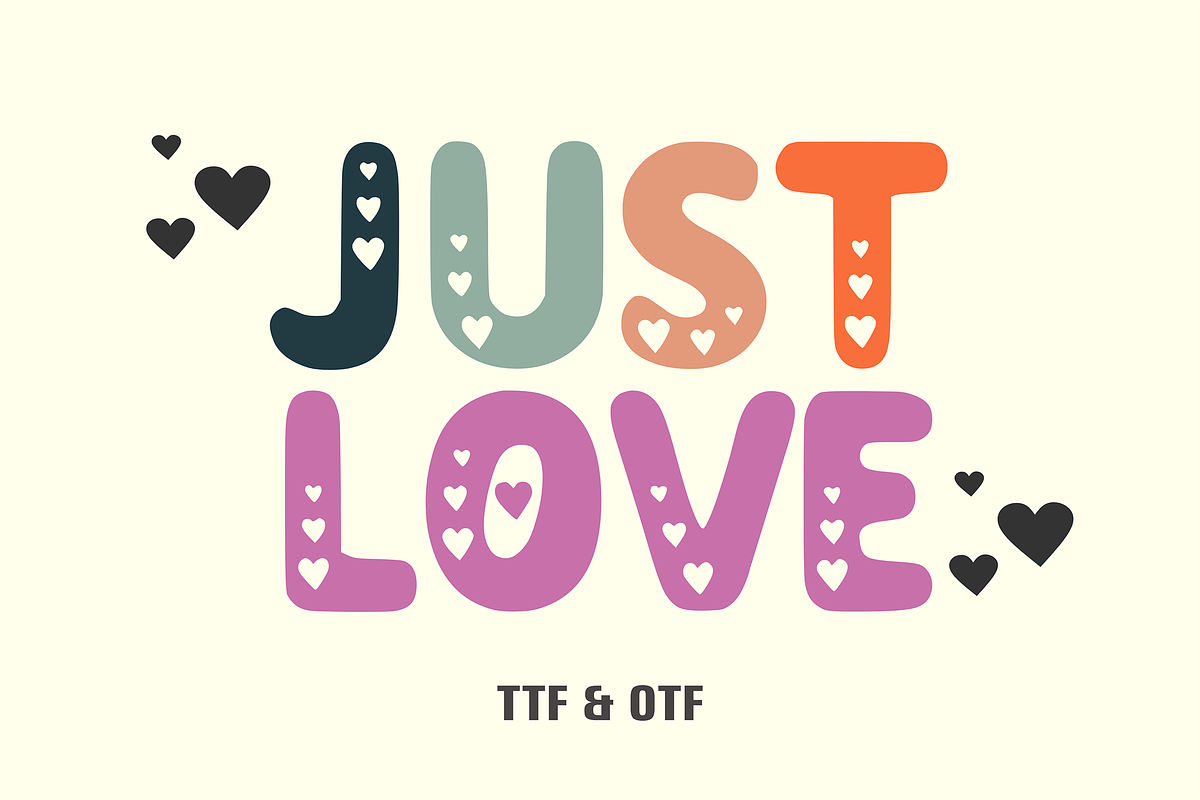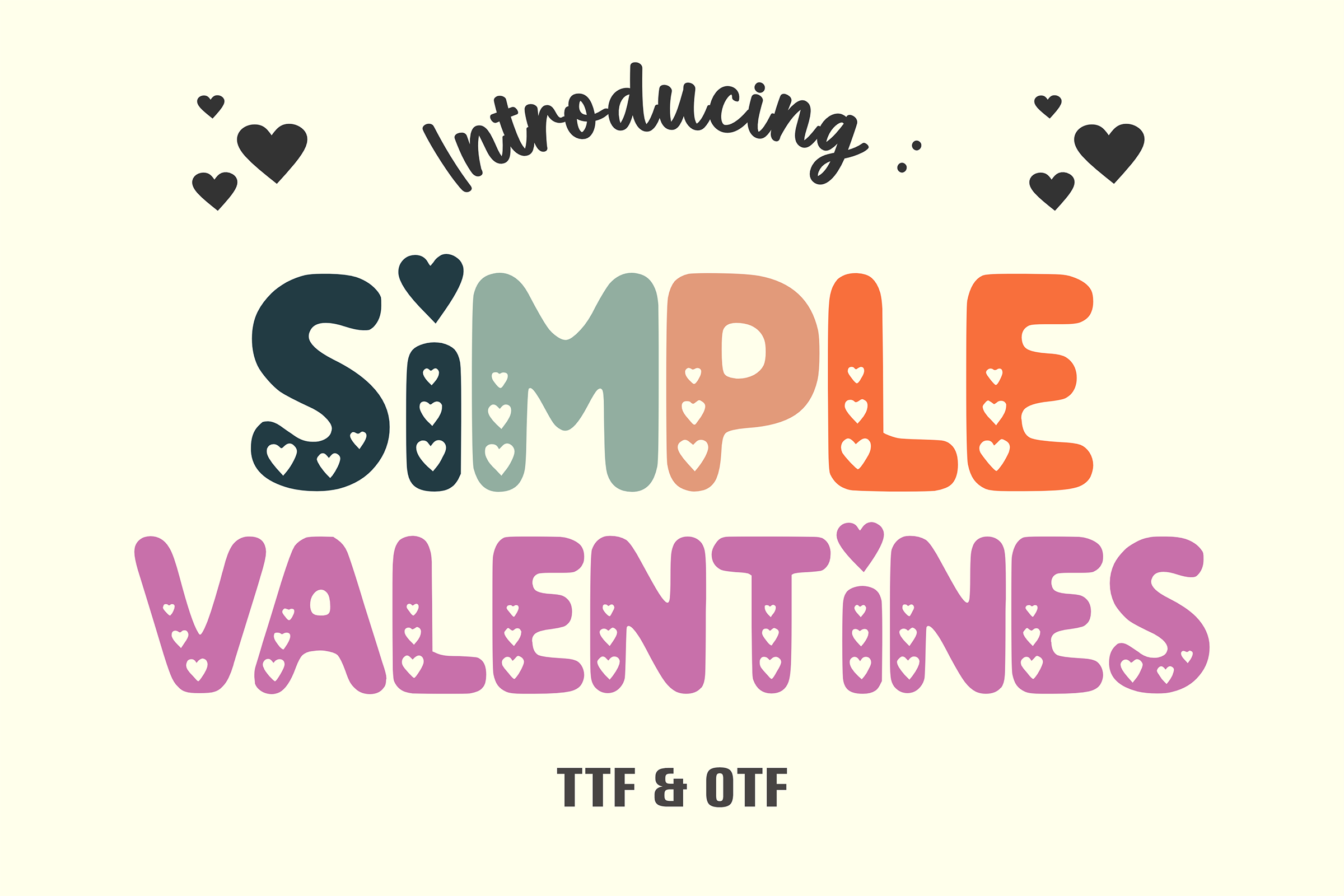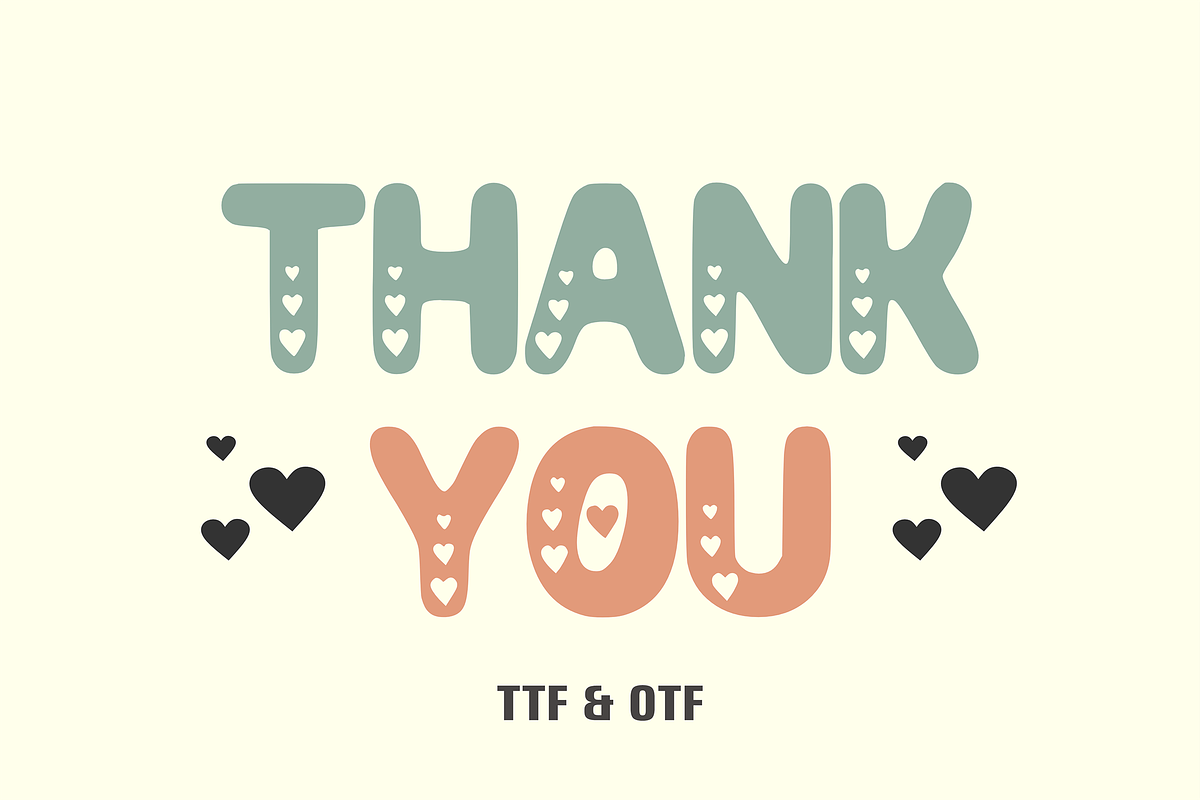
Simple Valentine - Kids Font Types
Simple Valentines is a unique and elegant Valentine’s font. With its charming characters, this font is perfect for expressing your feelings on special occasions or adding a fun touch to everyday crafts. Turn your creative endeavors into a celebration of love and relationships. Perfect your designs with this charming typeface.